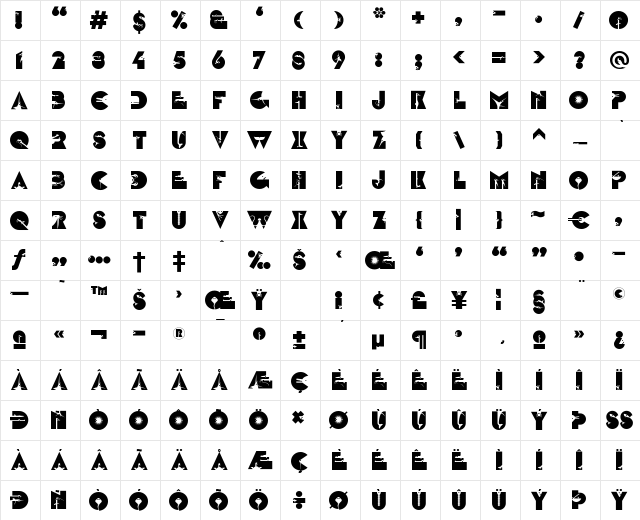
Complete LTZootype Water Regular glyph index. Displaying only characters natively supported by LTZootype Water Regular font.
LTZootype Water is a composed and adaptable typeface that performs quietly and consistently across a wide range of design contexts.